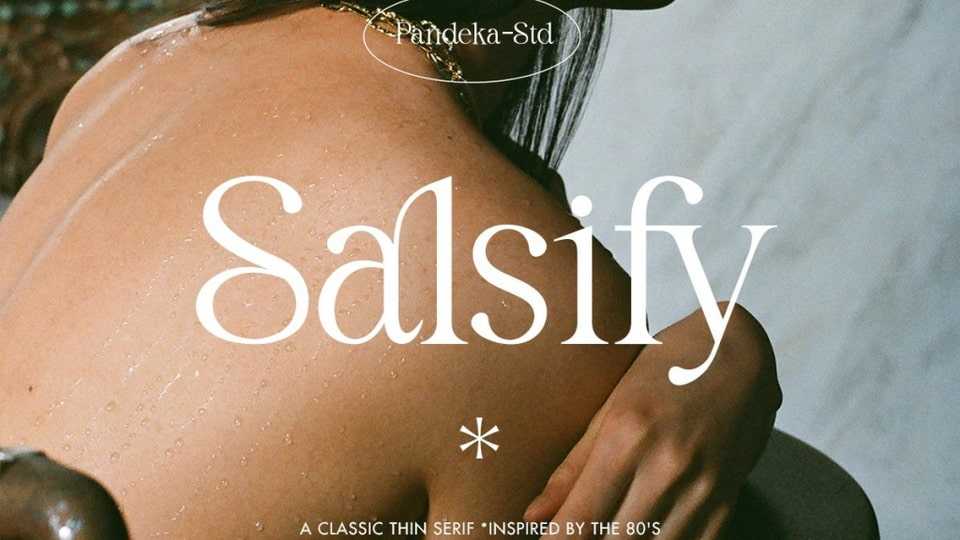
Download Salsify font, a stunningly crisp serif typeface that looks incredible in both large settings as a display text, perfect for fashion work, magazines or just a classy logo design.